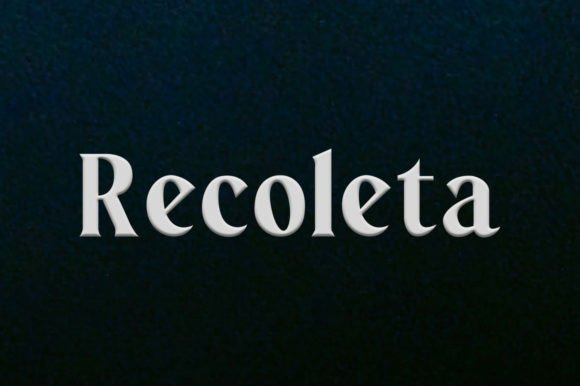
Introducing Recoleta Font, the epitome of sophistication and charm in the world of typography. This delicate serif font, masterfully crafted by Hendrik Studio, exudes an aura of elegance that is sure to leave a lasting impression on your audience. Its graceful lines and subtle curves dance together in perfect harmony, creating a visual symphony that commands attention and captivates the senses.
With its fine serifs and impeccable detailing, Recoleta Font embodies the essence of luxury and refinement. It is the perfect choice for high-end fashion, beauty, or any branding project that demands a touch of exclusivity. Its timeless beauty and versatile nature make it suitable for a wide range of applications, from logos and branding materials to website design and editorial layouts.
Recoleta Font is more than just a font; it is an experience. It is an invitation to immerse yourself in a world of sophistication and elegance, where every letter tells a story and every word carries weight. Whether you're a designer seeking to elevate your work or a brand looking to establish a strong and memorable identity, Recoleta Font is the perfect choice.
So, why settle for ordinary when you can have extraordinary? Embrace the allure of Recoleta Font and watch as it transforms your creative vision into a captivating reality. Let its delicate strokes and graceful curves weave their magic, leaving your audience spellbound and inspired.